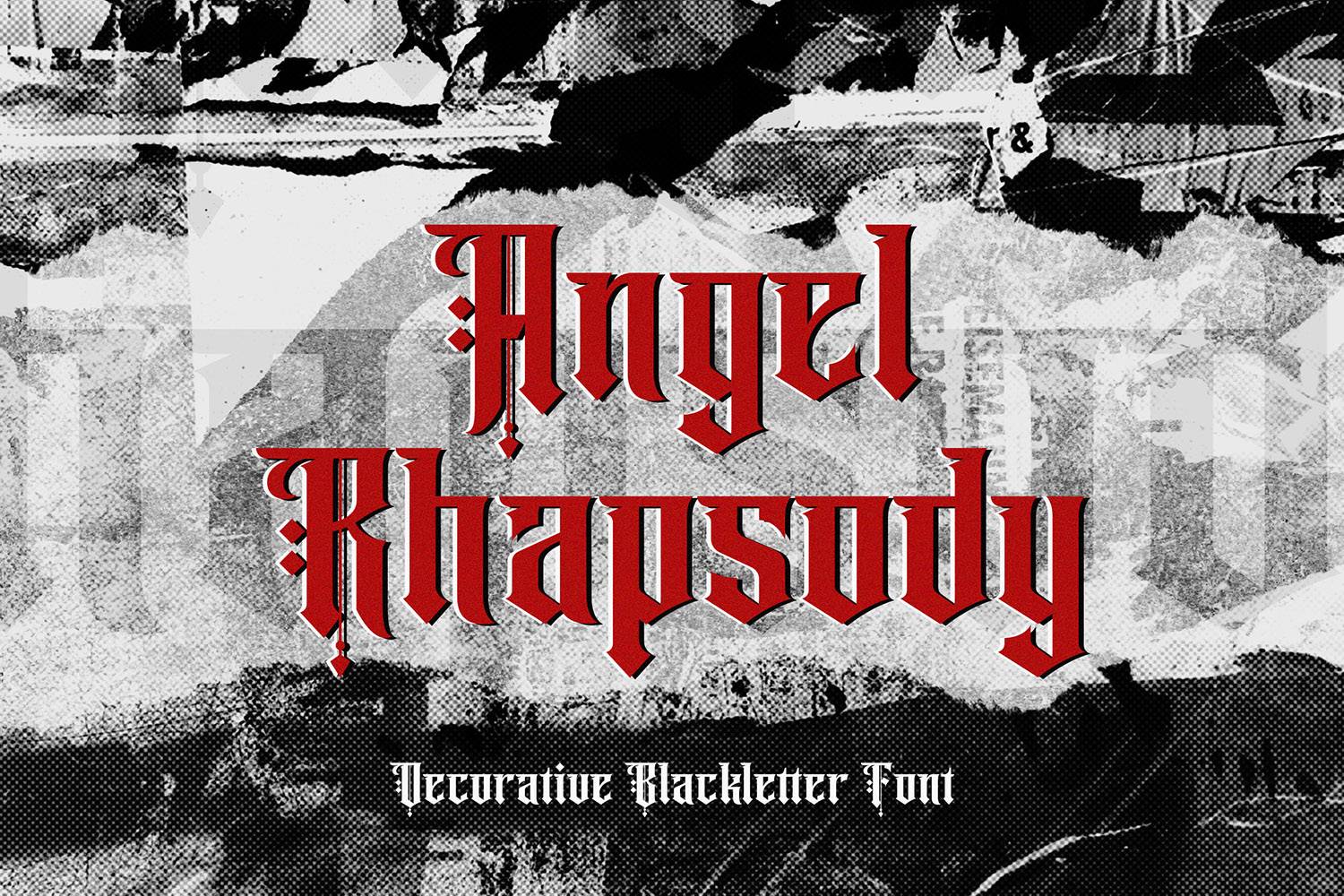
Angel Rhapsody is a bold, blackletter-inspired font featuring sharp, angular strokes and dramatic ornamental details that evoke a gothic, medieval aesthetic. Its tall, narrow letterforms with high contrast and distinctive decorative accents make it perfect for creating a striking, vintage-inspired mood suited for logos, posters, or branding that demands a strong, elegant statement. This font shines in display settings where its ornate style can be fully appreciated.
Angel Rhapsody Font
About Angel Rhapsody Font
| Font family | Angel Rhapsody Font |
| Designer | Stringlabs |